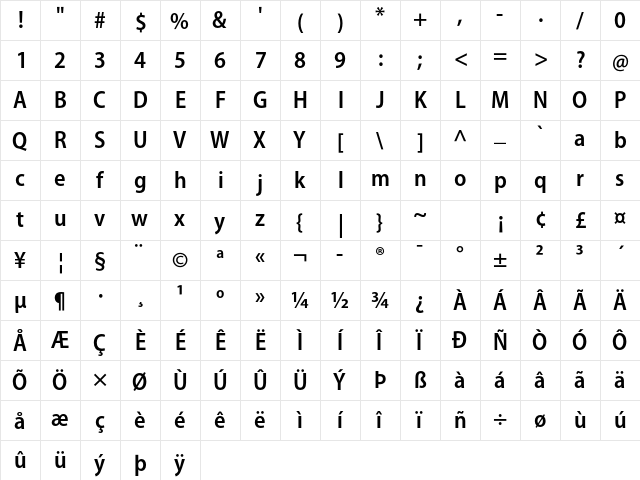
Myriad Pro Semibold SemiCondensed Font Preview
| Designer | Robert Slimbach and Carol Twombly with Fred Brady and Christopher Slye |
Design Context for Myriad Pro Typeface
Myriad Pro takes a measured approach to typography — its balanced proportions and neutral character make it a reliable workhorse for both digital and print work. The heavy weight commands attention and anchors typographic hierarchies. The condensed width makes it efficient for tight spaces without sacrificing legibility.